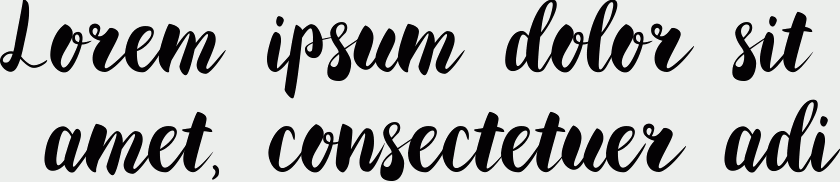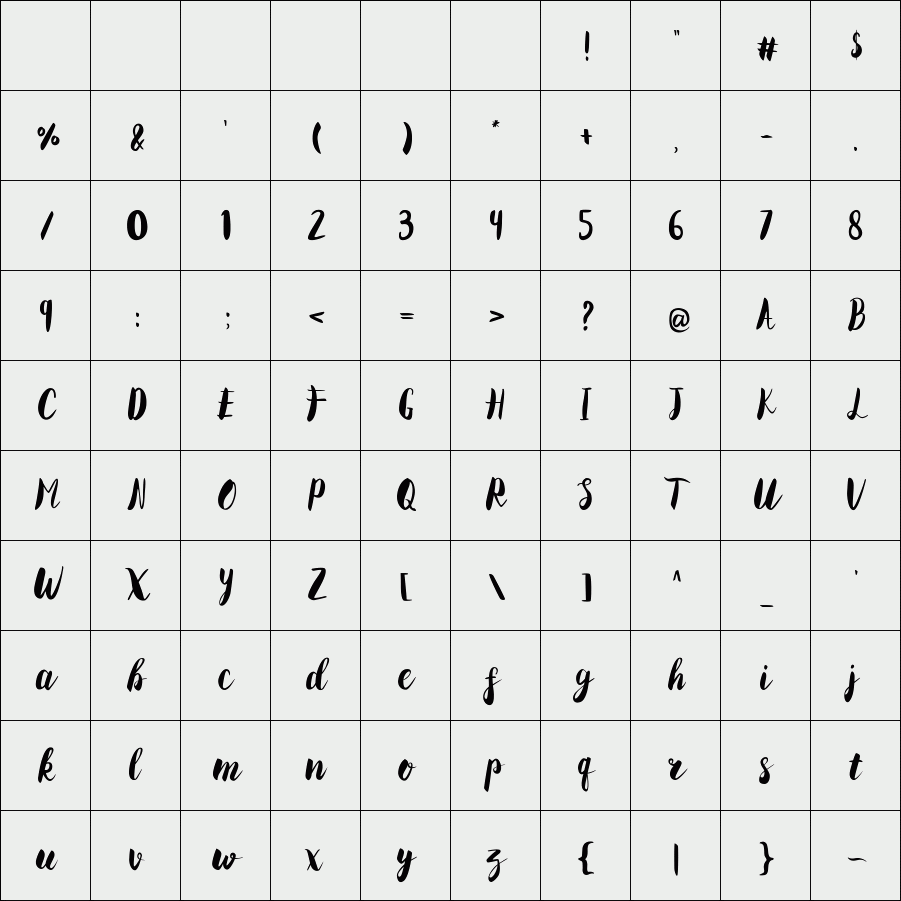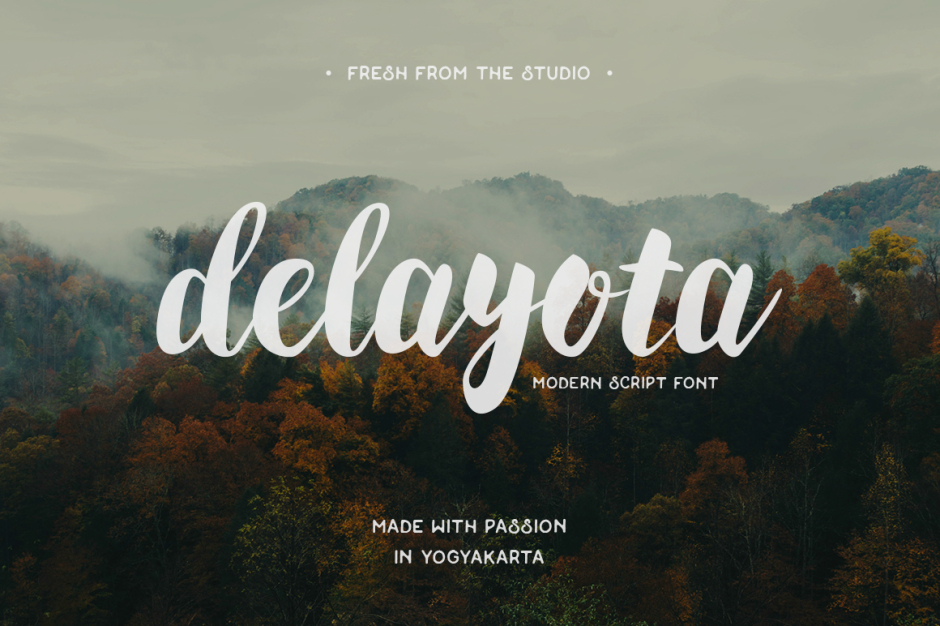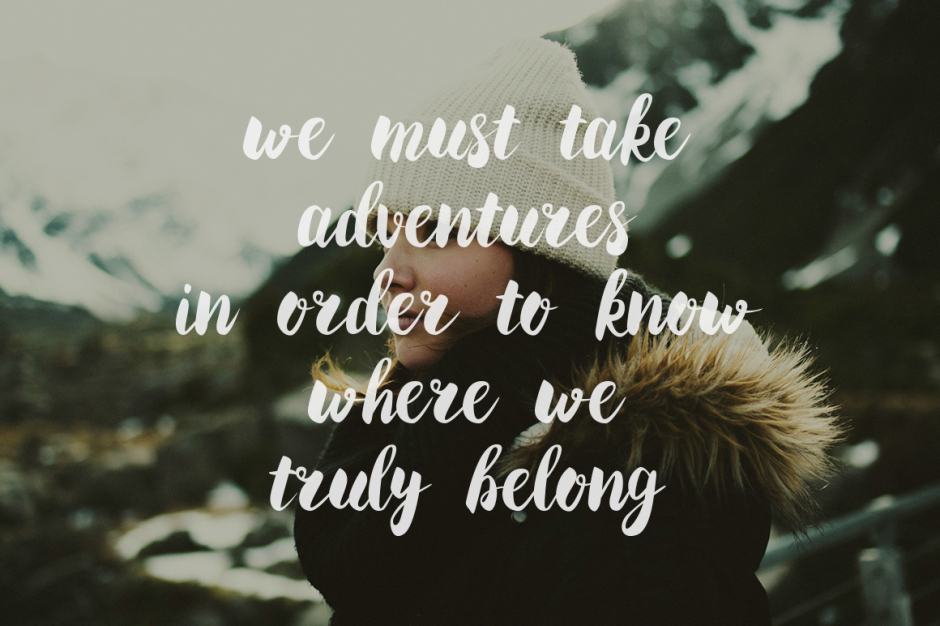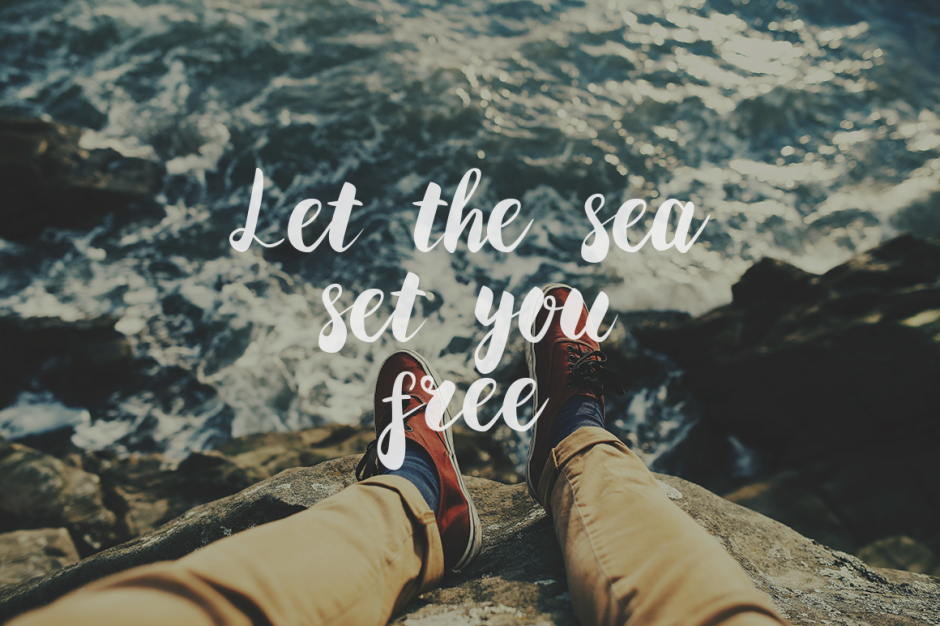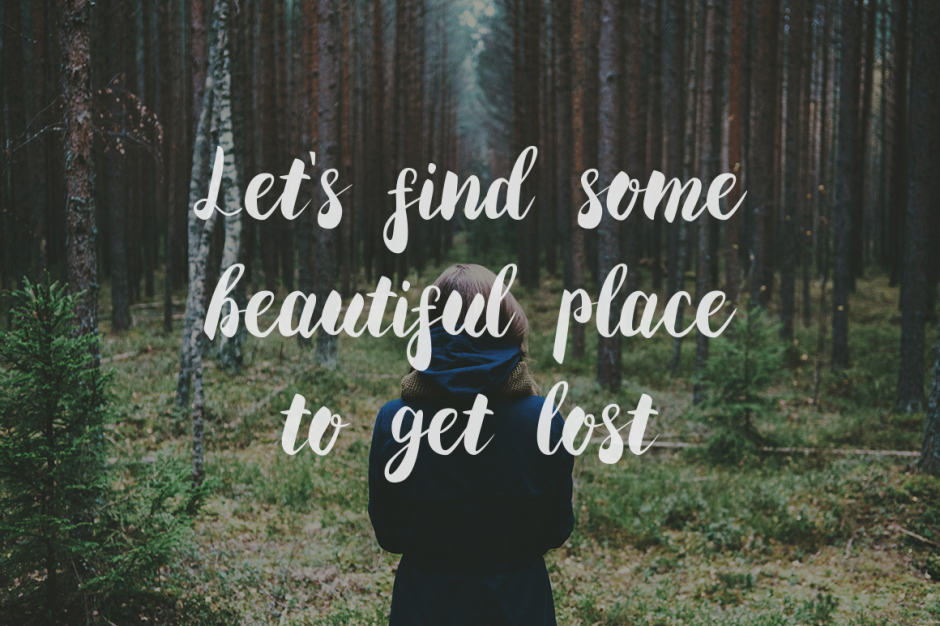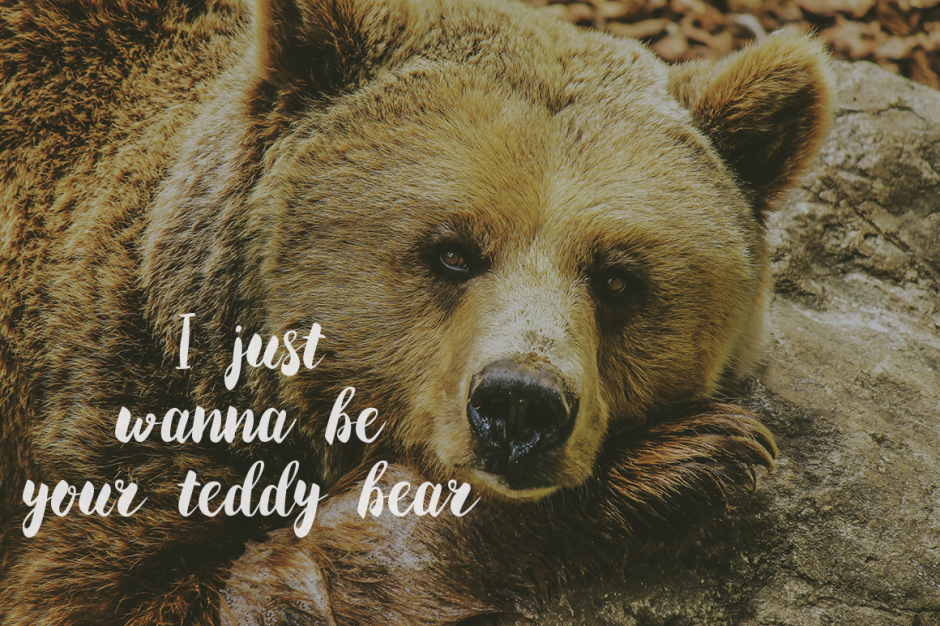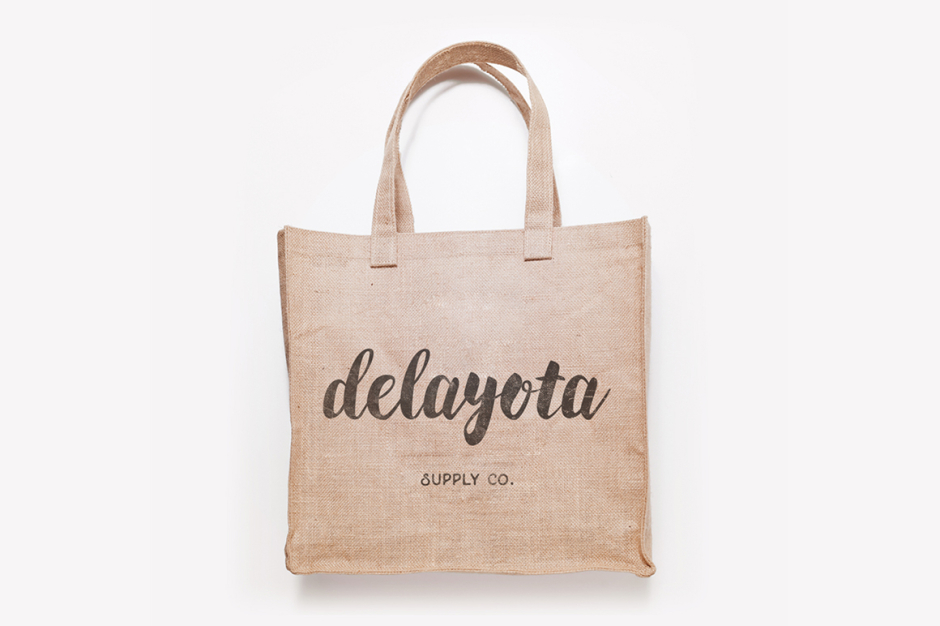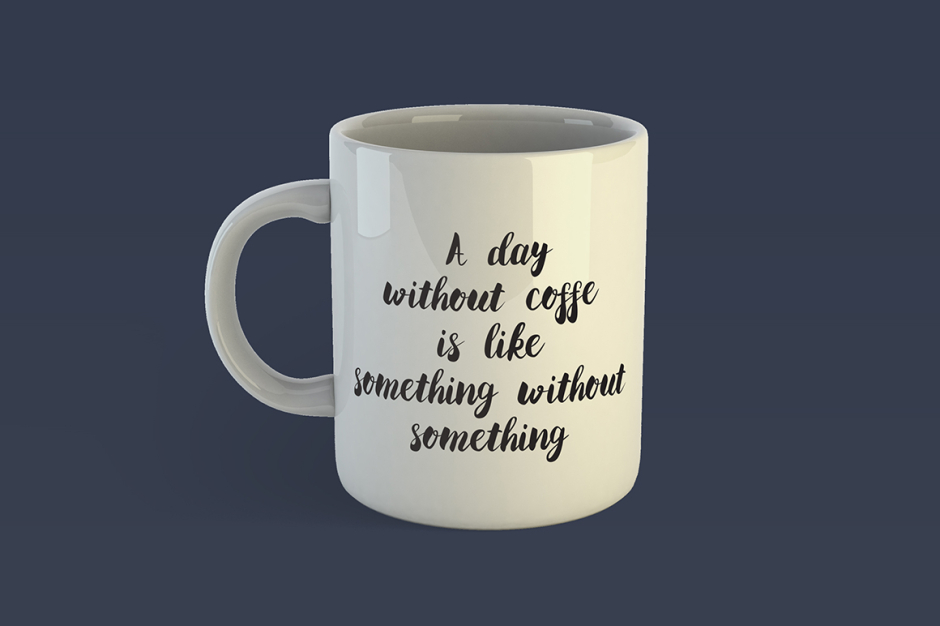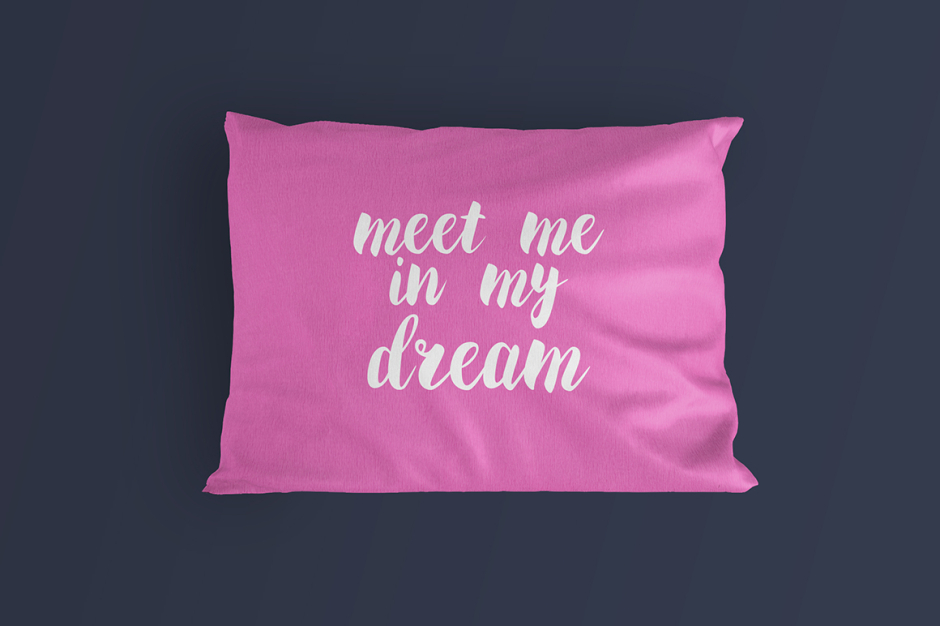
Delayota
Delayota modern script font, perfectly suited to card design, headline, poster, logos, wedding invitation, t-shirt, letterhead, lable, news, posters, badges and much more.